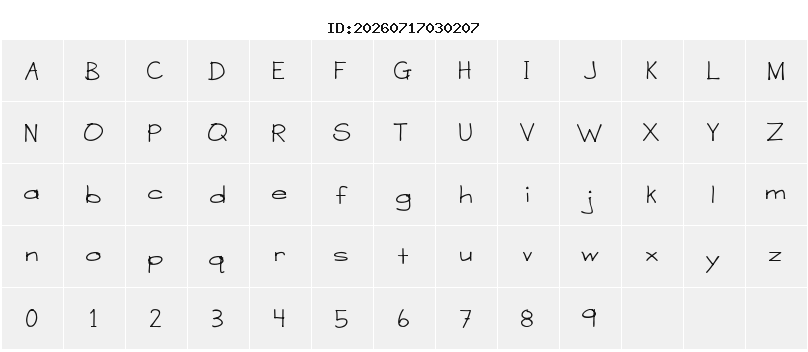
A Sensible Armadillo Preview
• Font Name: A Sensible Armadillo
• Full Font Name: A Sensible ArmadilloRegular
About A Sensible Armadillo.ttf
A Sensible Armadillo.ttf is a modern, elegant sans-serif font designed for ultimate readability and visual harmony. Perfect for branding, headlines, web design, and print materials.